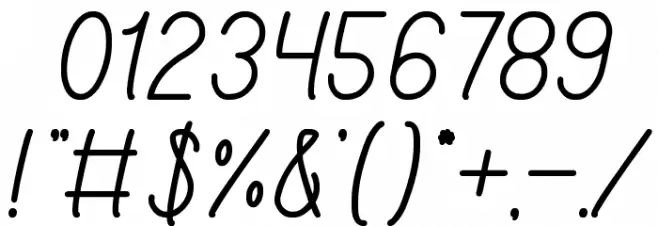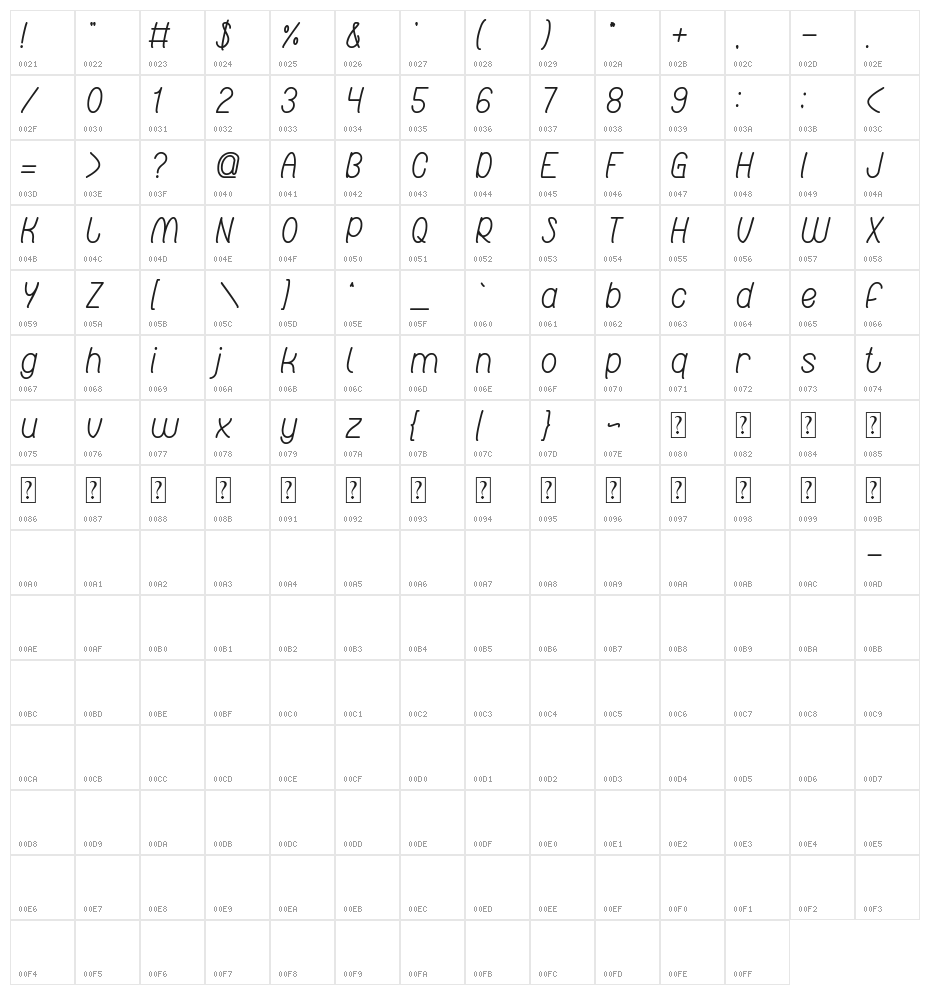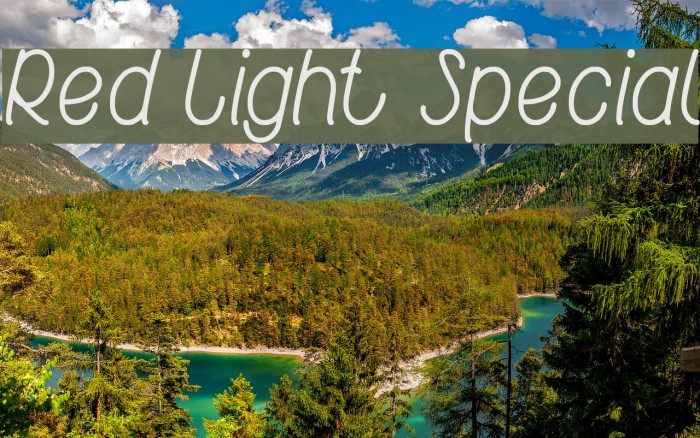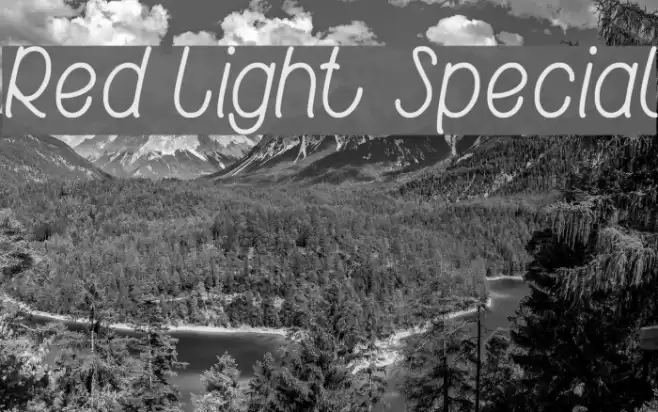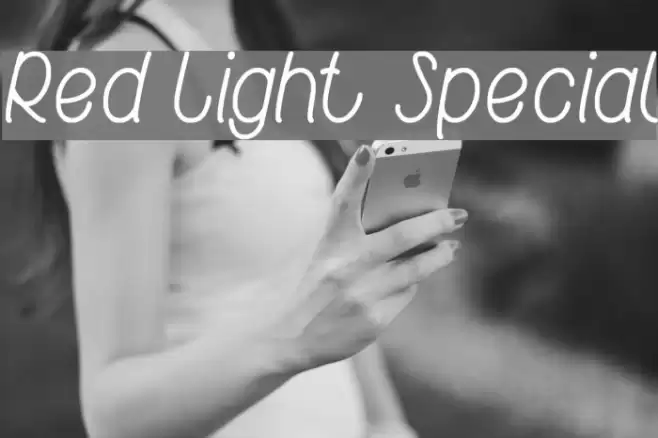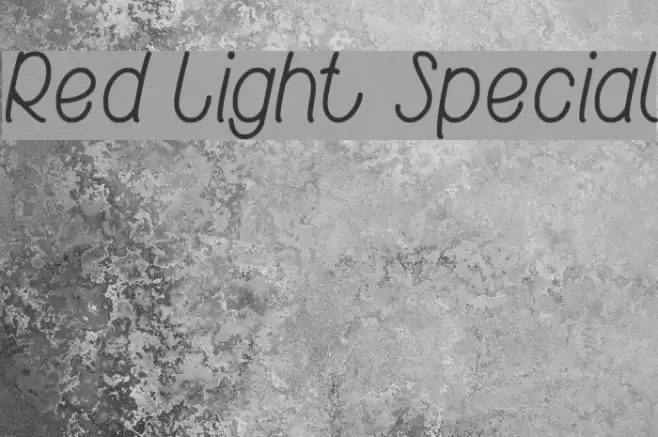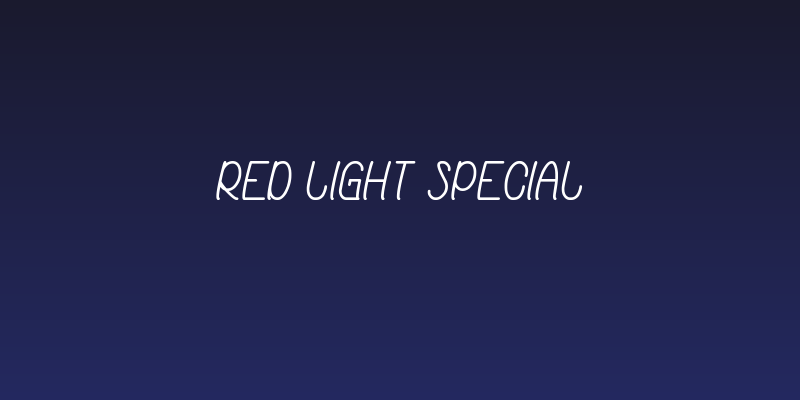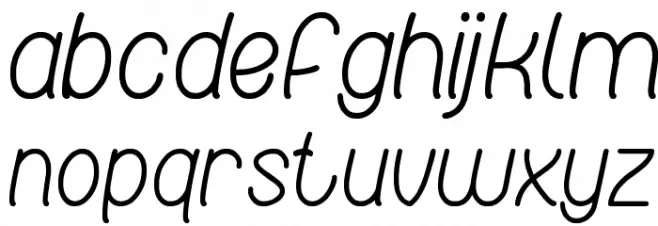
Red Light Special Font
Red Light Special Description
This font features a smooth, flowing script style that combines elegance with readability. The letters are slightly slanted, giving a sense of motion and fluidity. The uppercase letters are distinct and well-formed, while the lowercase letters maintain a consistent height and spacing, enhancing legibility. The numerals are clear and proportional, matching the overall aesthetic of the alphabet. Special characters are included, maintaining the same stylistic elements, making this font versatile for various uses. The strokes are consistent in thickness, providing a harmonious appearance across all characters.
Overall StyleElegant
Use CaseHeadlines, Invitations, Branding
Proposed ProjectsIdeal for wedding invitations, greeting cards, branding, and elegant packaging designs.